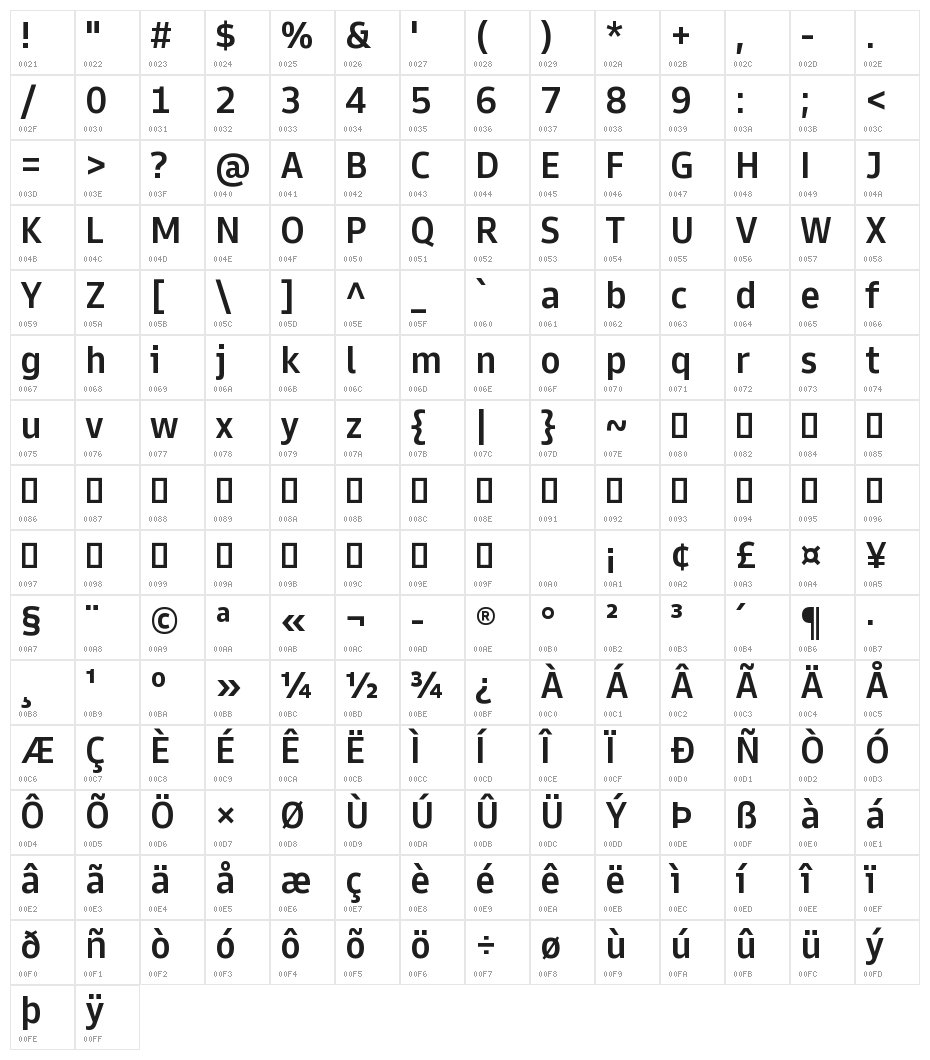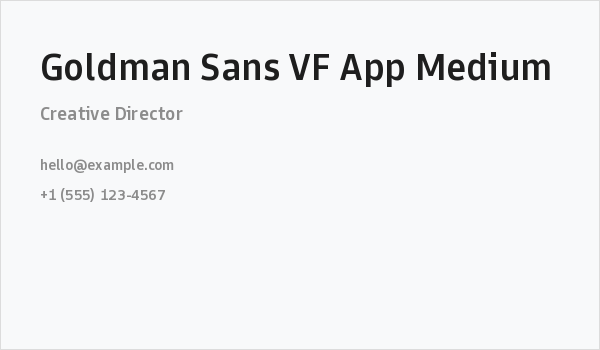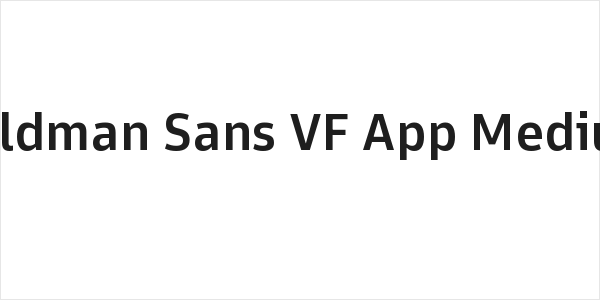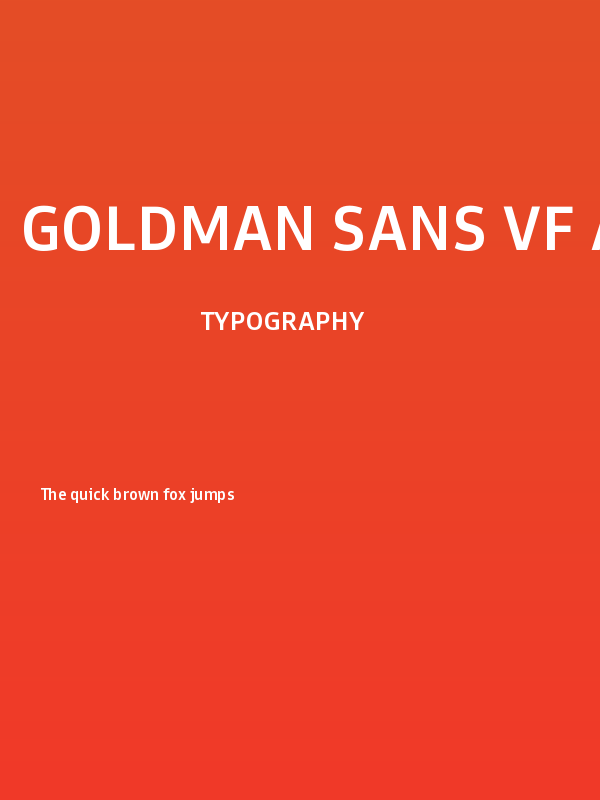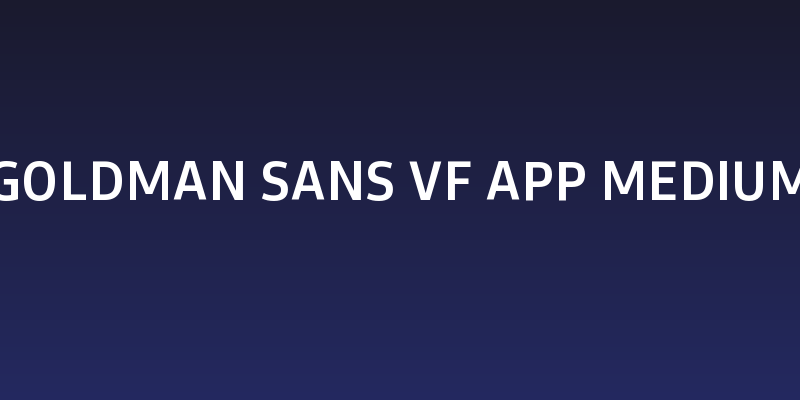
Goldman Sans VF App Medium Font
Goldman Sans VF App Medium Description
This typeface features a clean and modern sans-serif design, characterized by its straightforward and legible letterforms. The uppercase and lowercase letters maintain a consistent stroke width, contributing to a balanced and harmonious appearance. The numerals are clear and easily distinguishable, making them suitable for various applications. Special characters are well-integrated, ensuring versatility in usage. The overall design is minimalistic, focusing on functionality and readability, making it ideal for digital and print media.
| Proposed Projects | Ideal for web design, corporate branding, user interfaces, and editorial layouts. |